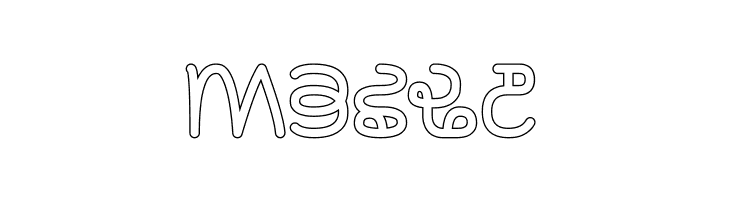
VTC-KomikaHeadLinerOne Bold Font
- Font: VTC-KomikaHeadLinerOne Bold
A bold, outline font with rounded, flowing characters for modern, decorative use.